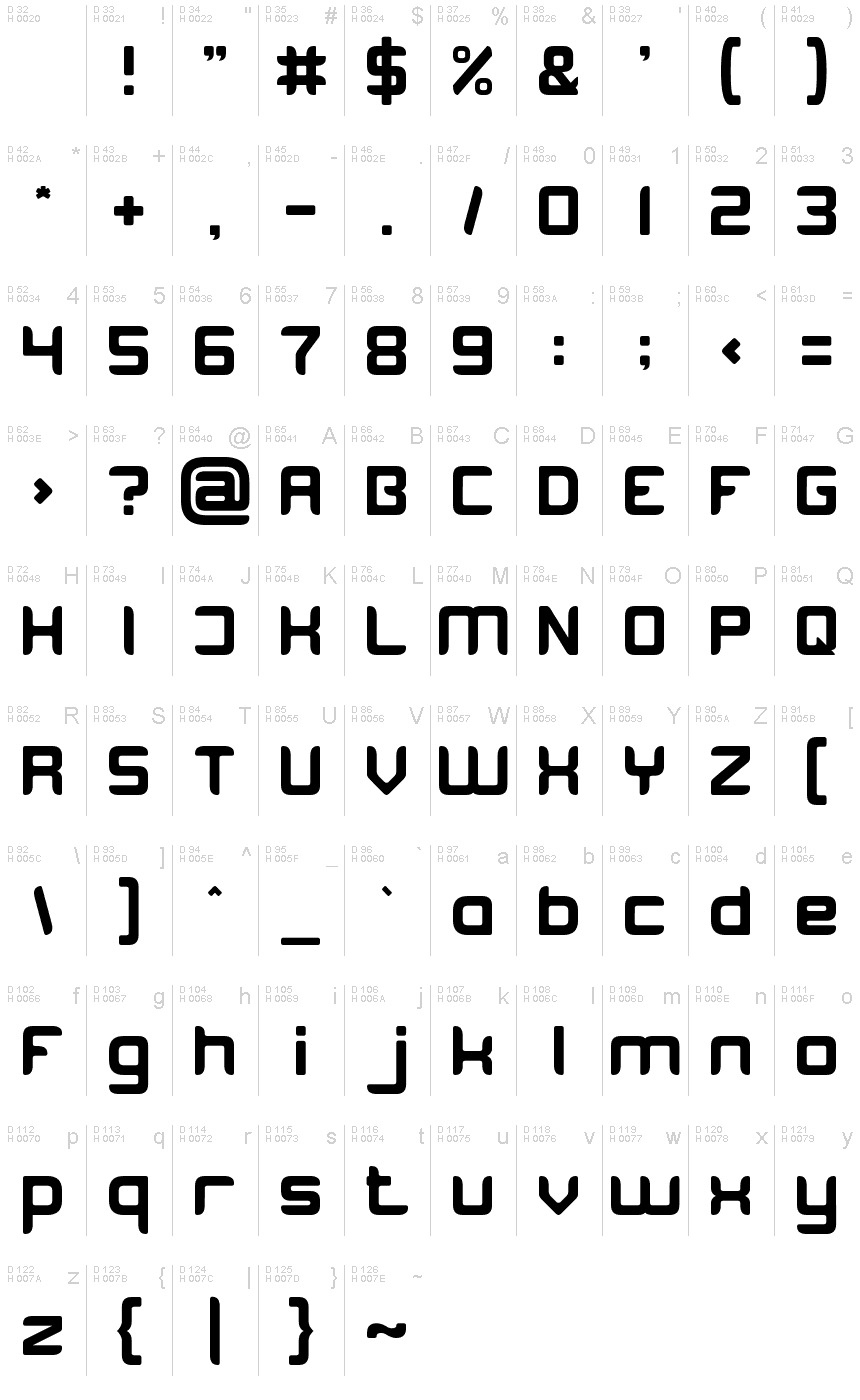
RESEARCH AND DEVELOPMENT
RESEARCH AND DEVELOPMENT, designed by weknow, is a font that embodies the essence of innovation and modernity. Its techno style is evident in the clean, precise lines and semi-bold weight that convey a sense of strength and forward-thinking. The semi-expanded width offers a balanced presence on the page, making each letter stand out with an assertive yet approachable demeanor.
Visually, RESEARCH AND DEVELOPMENT exudes an aesthetic appeal that's both contemporary and versatile. The font's geometric precision lends itself to a wide array of creative projects such as tech start-up branding, science publications, or digital interfaces where clarity and impact are paramount.
Its distinct appearance—characterized by a sleek uniformity and cutting-edge vibe—is tailored for those seeking to make a bold statement in their design work. Whether used for logos, headlines or display copy, RESEARCH AND DEVELOPMENT is sure to elevate any project with its unique blend of style and functionality.